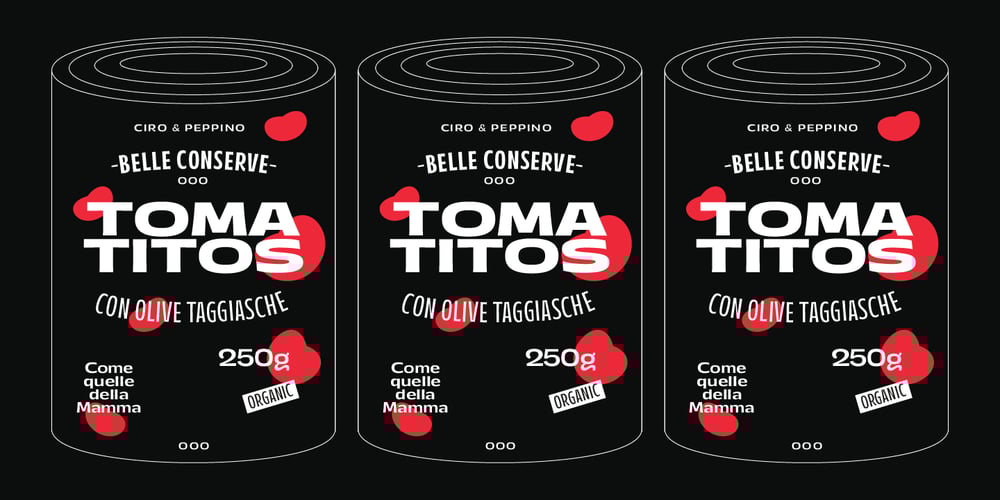
Annuario Font Family was designed by Giuseppe Salerno, Paco González and published by Resistenza. Annuario contains 48 styles and family package options. Annuario is a sans serif multi-weight font family initially designed for a calendar.48 fonts with 2 axes, a flexible family for many purposes.More About Opentype Features: https://bit.ly/opentype-rsz